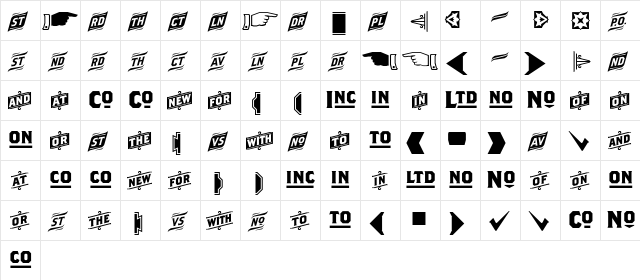
BrothersWordLogos Roman
Design Context for BrothersWordLogos Typeface
BrothersWordLogos is a composed and adaptable typeface that performs quietly and consistently across a wide range of design contexts.